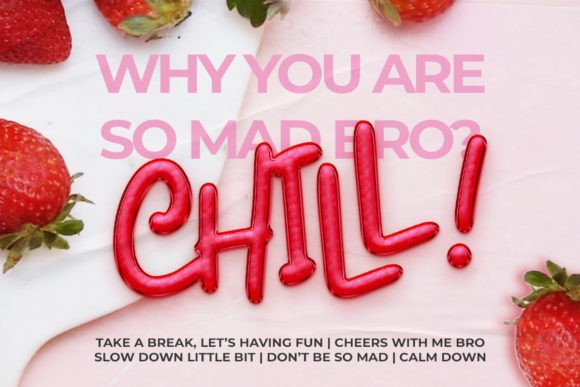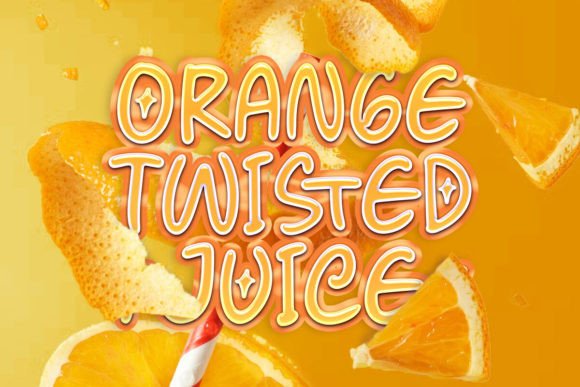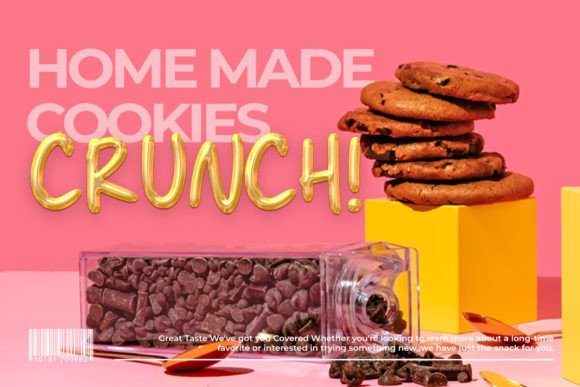
Introduction to Slothy Jelly Font
Introducing Slothy Jelly.
A fun font for everyone Slothy Jelly is a cute handwritten font that has fun and happy characteristics.
Why Choose Slothy Jelly Font?